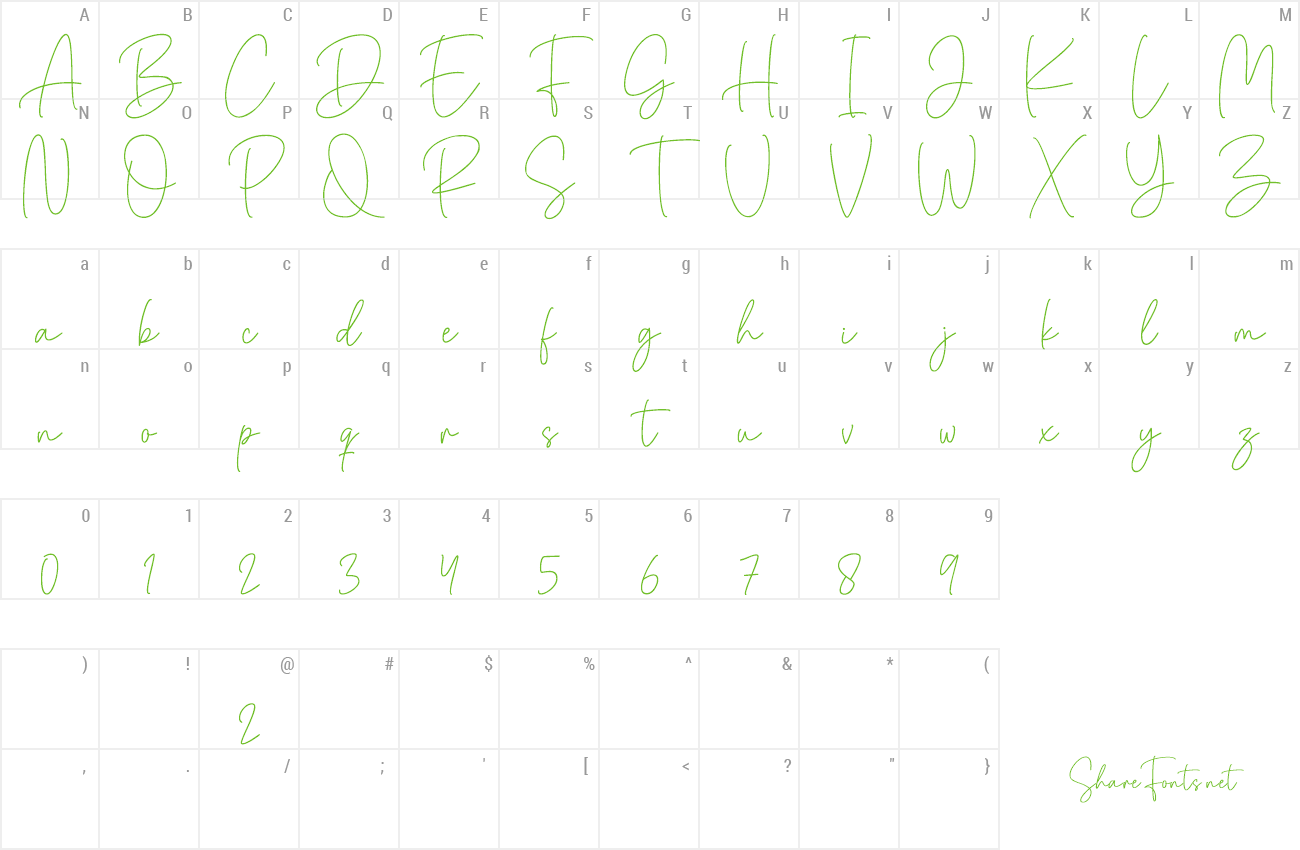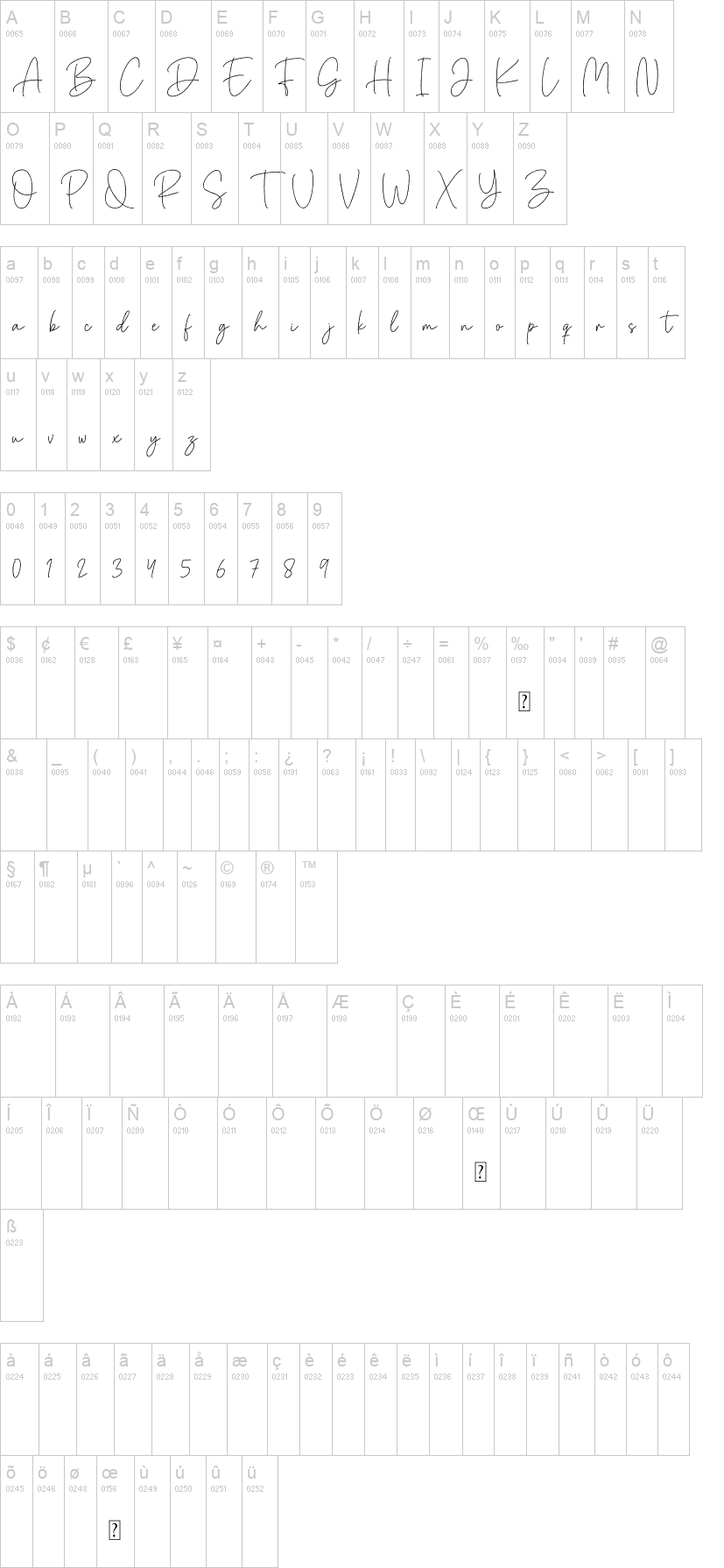
Bellinda Christina Font
Bellinda Christina Font - Web bellinda christina is inspired by classic typography and brings its own unique style to any design project. Web the bellinda christina font is a delightful and trendy typeface that effortlessly merges clarity and genuineness.
Web the bellinda christina font is a delightful and trendy typeface that effortlessly merges clarity and genuineness. Web bellinda christina is inspired by classic typography and brings its own unique style to any design project.
Web bellinda christina is inspired by classic typography and brings its own unique style to any design project. Web the bellinda christina font is a delightful and trendy typeface that effortlessly merges clarity and genuineness.
Web the bellinda christina font is a delightful and trendy typeface that effortlessly merges clarity and genuineness. Web bellinda christina is inspired by classic typography and brings its own unique style to any design project.
Web bellinda christina is inspired by classic typography and brings its own unique style to any design project. Web the bellinda christina font is a delightful and trendy typeface that effortlessly merges clarity and genuineness.
Web the bellinda christina font is a delightful and trendy typeface that effortlessly merges clarity and genuineness. Web bellinda christina is inspired by classic typography and brings its own unique style to any design project.
Web Bellinda Christina Is Inspired By Classic Typography And Brings Its Own Unique Style To Any Design Project.
Web the bellinda christina font is a delightful and trendy typeface that effortlessly merges clarity and genuineness.